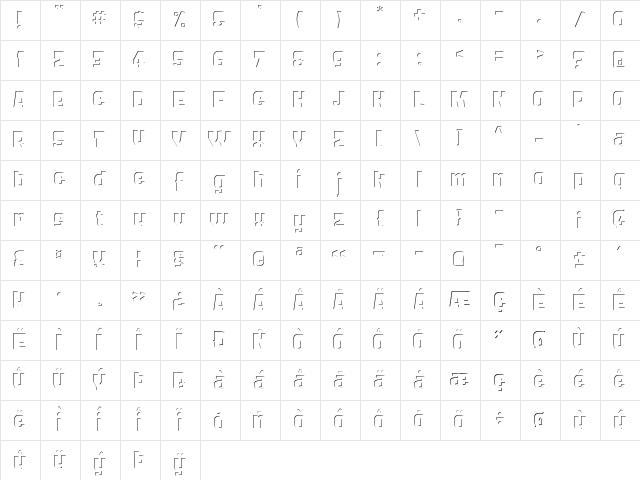
Complete FROS BOLD Inner Regular glyph index. Displaying only characters natively supported by FROS BOLD Inner Regular font.
FROS BOLD Inner is a composed and adaptable typeface that performs quietly and consistently across a wide range of design contexts. Its bold stroke weight gives it real presence on the page.